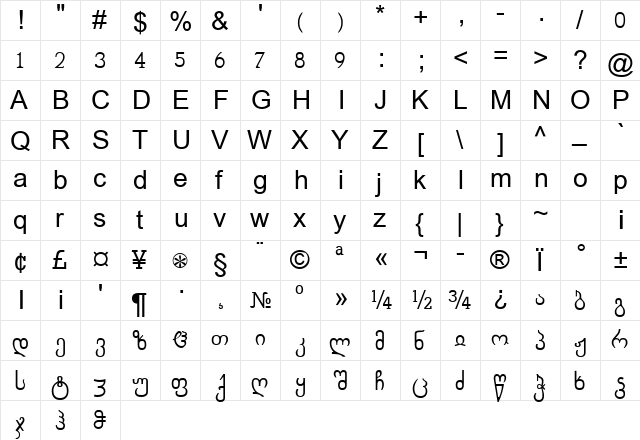
GEO_CVEULEBRIVI Regular
Design Context for GEO_CVEULEBRIVI Typeface
GEO_CVEULEBRIVI offers clean, dependable letterforms without strong stylistic allegiance, making it a practical choice for designers who need flexibility.